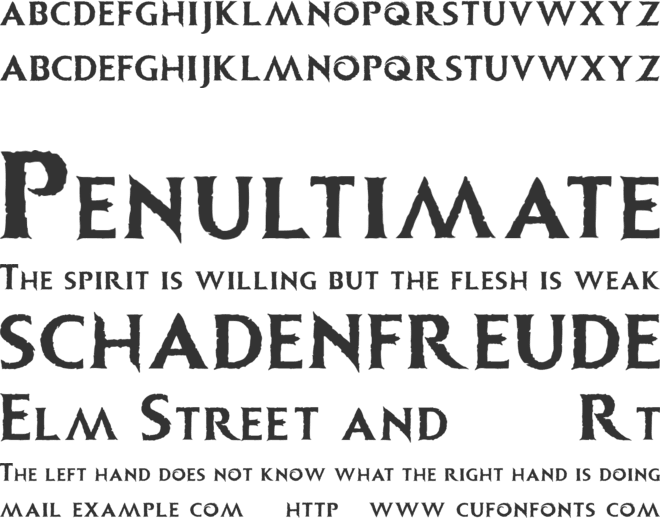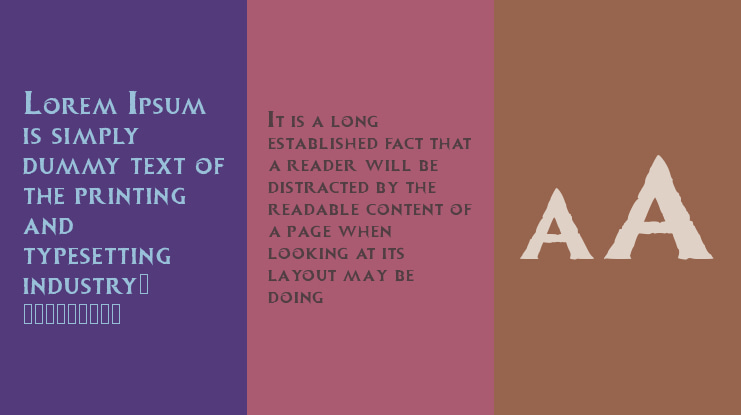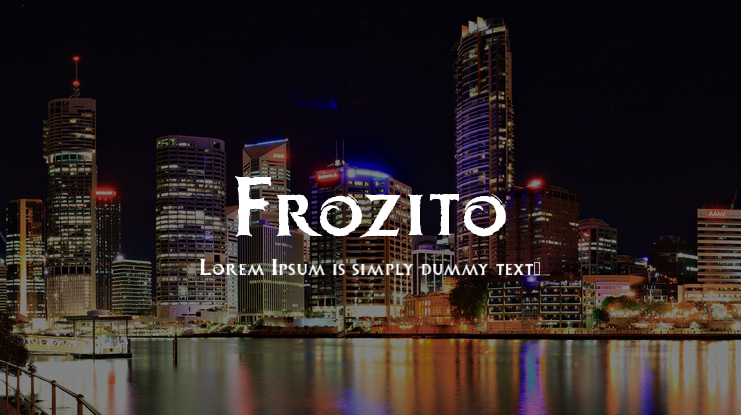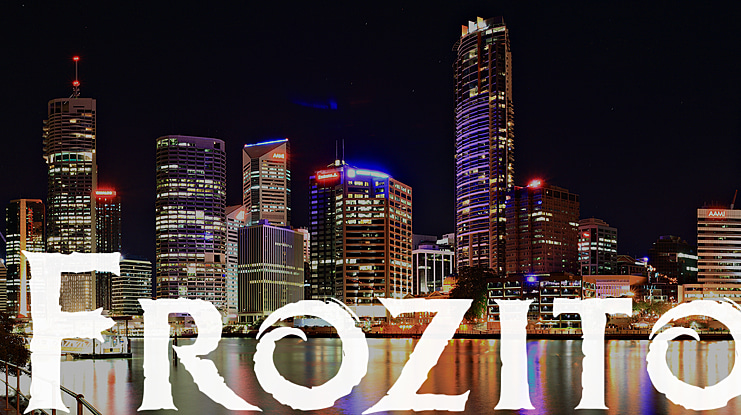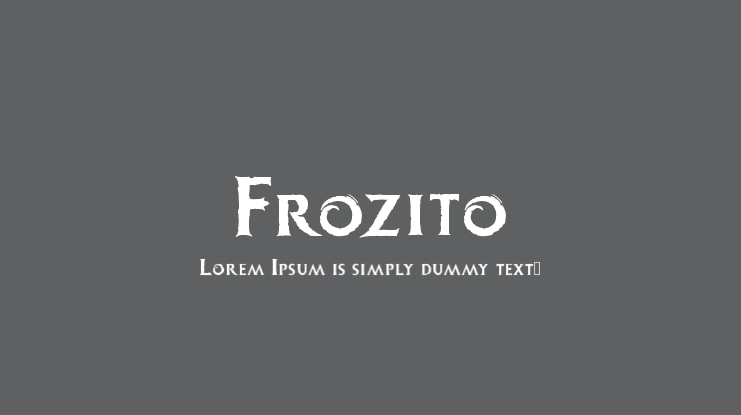
Frozito Font
I was in the mood to make something winter related and Christmas-y. Based on Frozen. For commercial use, or to get the whole set, please contact me at: